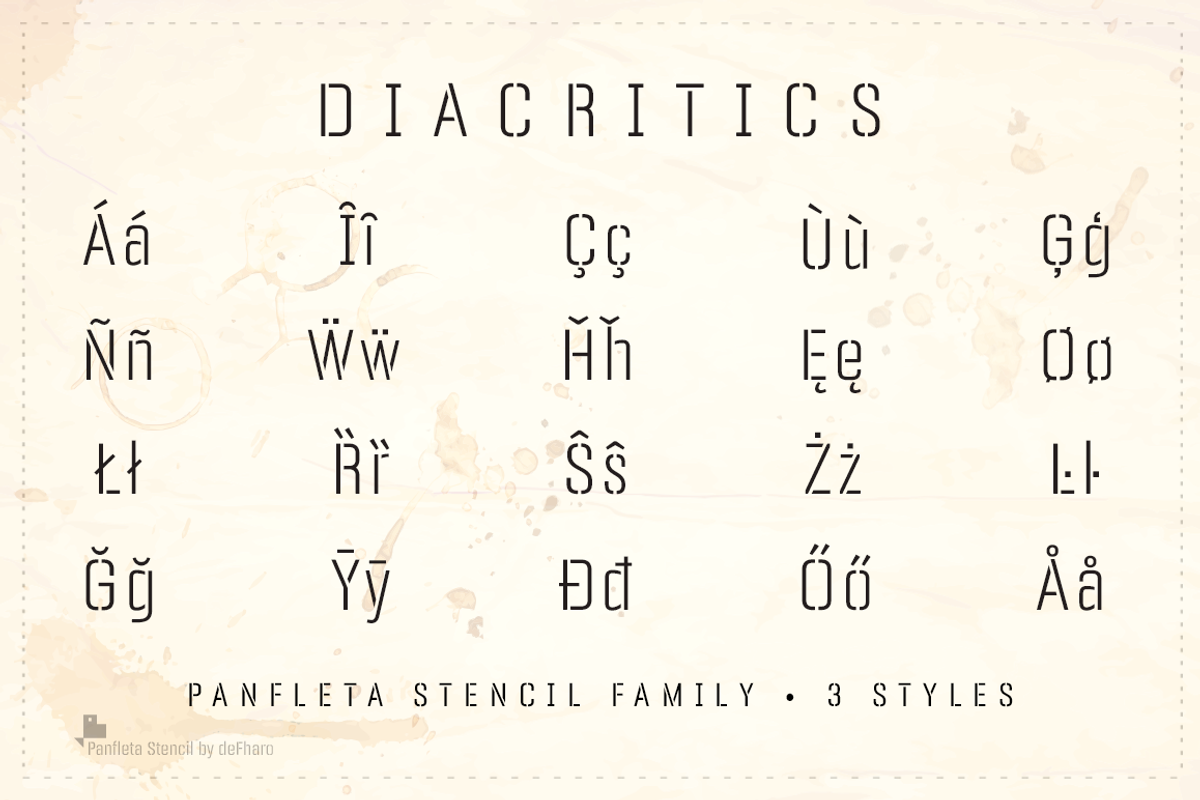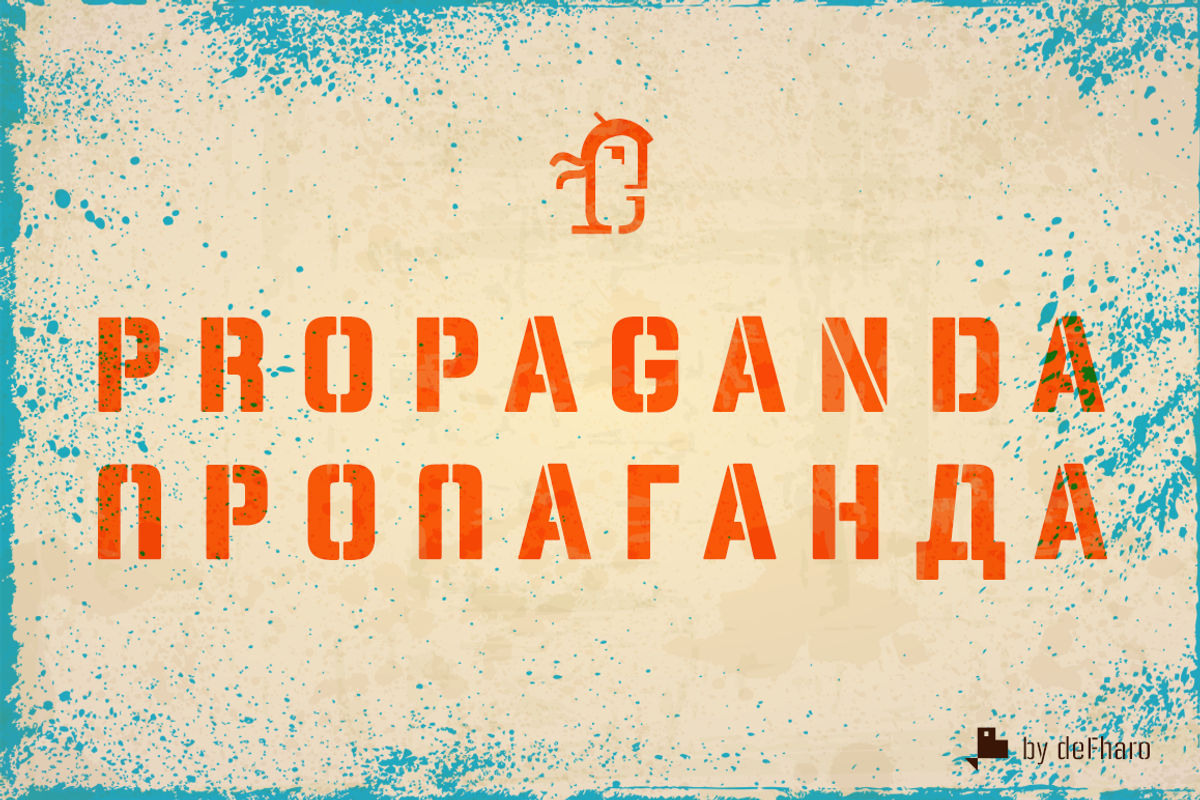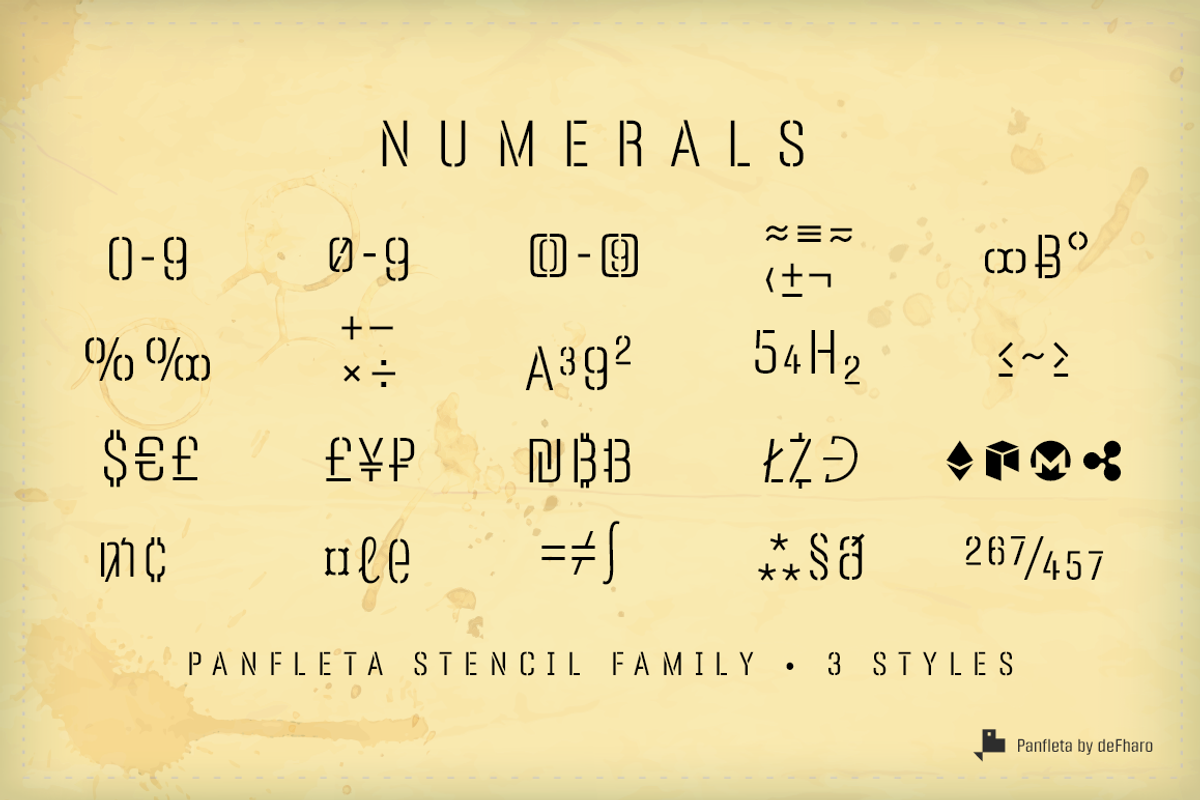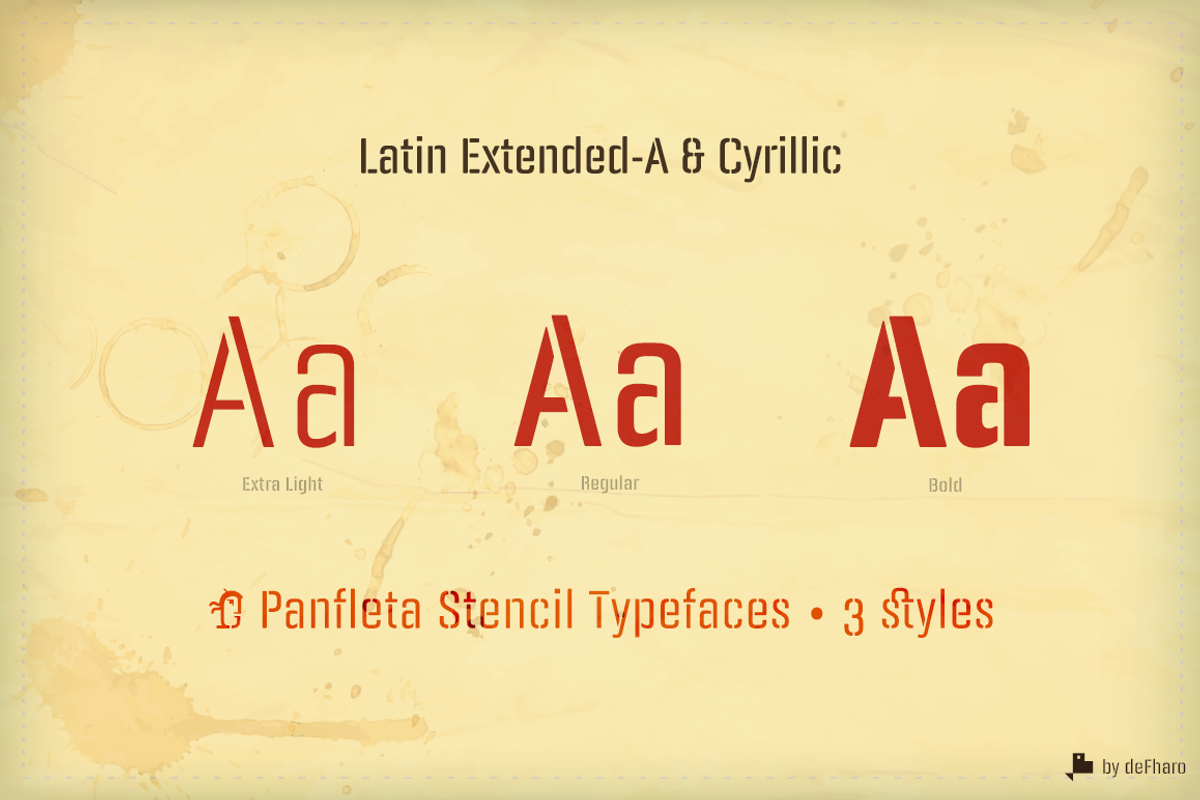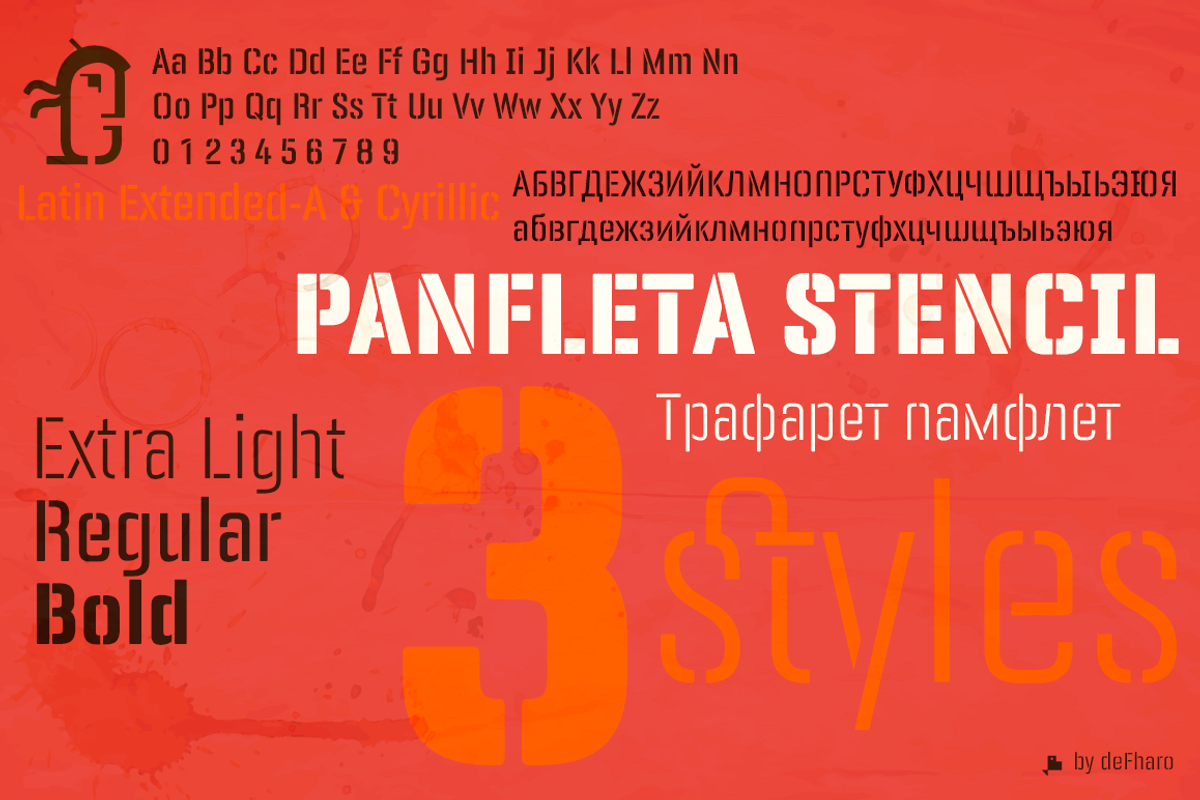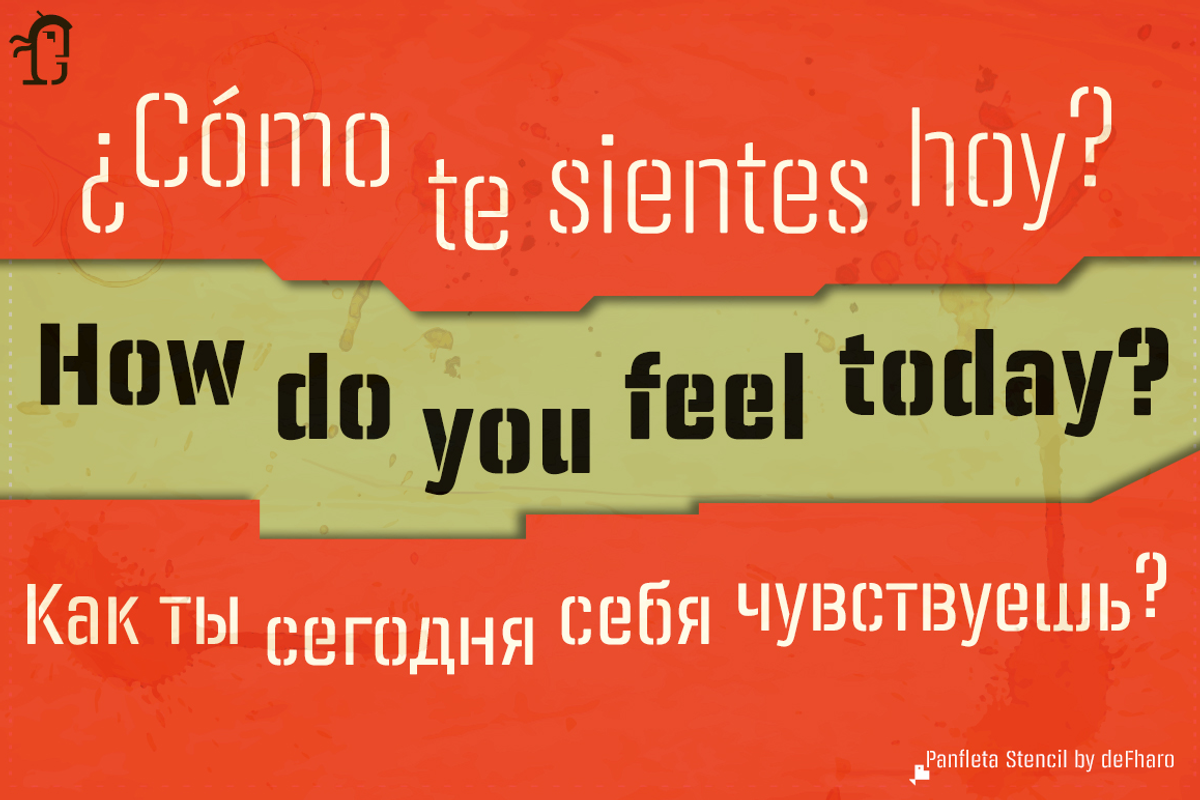
Panfleta Stencil -3 fonts-
Panfleta Stencil is a rounded typography sans serif, template style with geo-grotesque modulation, condensed, with short descending and ascending above the height of capitals and a high height of the x to compose very legible texts in small sizes. The round finish of the corners bring personality and warmth to the pure geometric development of this typeface. The careful study of the metrics and the meticulous configuration of the Kerning make a set of reliable fonts for use in both editorial design and advertising.
The inspiration for this family of fonts comes from the old pamphlets and political propaganda posters of the early and mid 20th century, in this case the stenciled design adds industrial, military or commercial connotations being perfect for the design of posters, packaging or advertising.
Latin Extended-A & Cyrillic
Panfleta Stencil includes the symbol of Bitcoin and currency symbols.
OpenType Features: Kerning, Historical Forms, Ordinals, Optical Size, Oldstyle Figures, Extended Fractions, Numerators, Fractions, Localized Forms, Denominators, Historical Ligatures, Discretionary Ligatures, Inferiors, Scientific Inferiors, Superscript, Additional languages, Superiors, All Alternates, Alternate Annotation Forms, Superior letters, Subscript, Capital Spacing, Standard Ligatures, Slashed Zero.